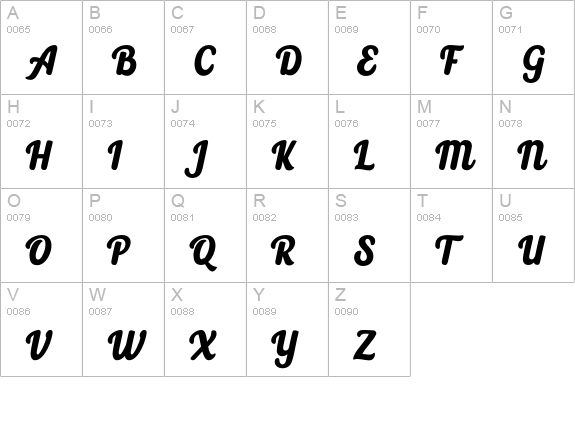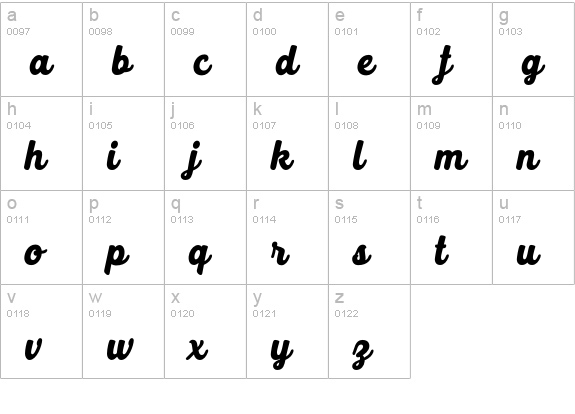
Selphia font is a beautifully designed typeface that combines elegance and modernity. With its clean lines and sophisticated curves, Selphia is perfect for a wide range of design projects, from branding to editorial design. This versatile font exudes a sense of refinement and professionalism, making it ideal for conveying a message of sophistication and style. What sets Selphia font apart is that it is available for free download at FontsMarket.com. This means that you can easily access this stunning font and use it in your projects without any cost. Whether you are a graphic designer, a marketer, or a business owner looking to elevate your visual identity, Selphia font is a fantastic choice that won't break the bank. Download Selphia font today and add a touch of elegance to your designs!